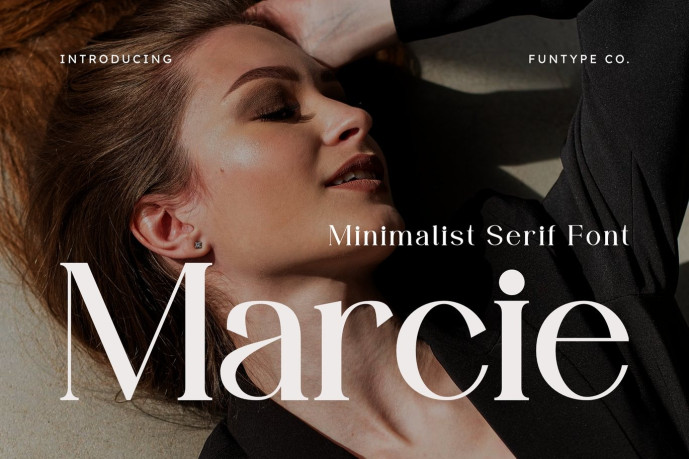
Marcie – Modern Minimalist Serif Font
Marcie is an classy, high-end, and modern minimalist serif font, meticulously engineered to bring a sophisticated editorial presence, refined classical balance, and clean luxury aesthetic to contemporary layouts. Featuring a sleek structural profile, beautiful thin-to-thick stroke contrasts, and gracefully curved terminals, Marcie introduces a premium high-end cosmetic, upscale corporate, and prominent literary media identity designed to elevate modern design compositions.